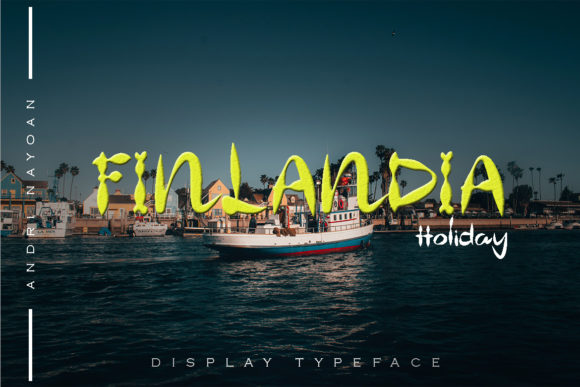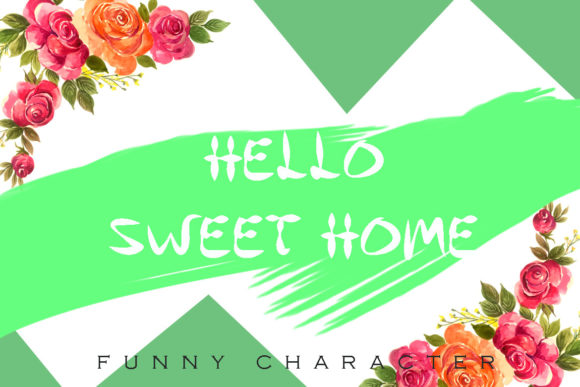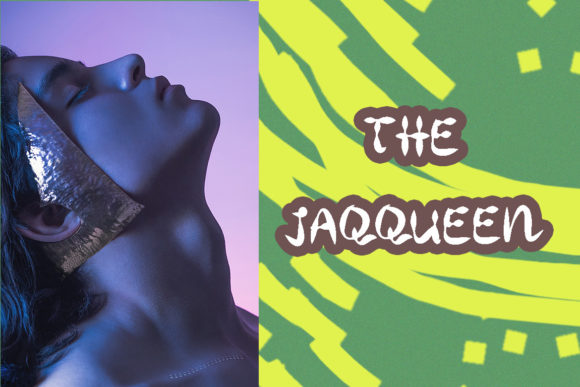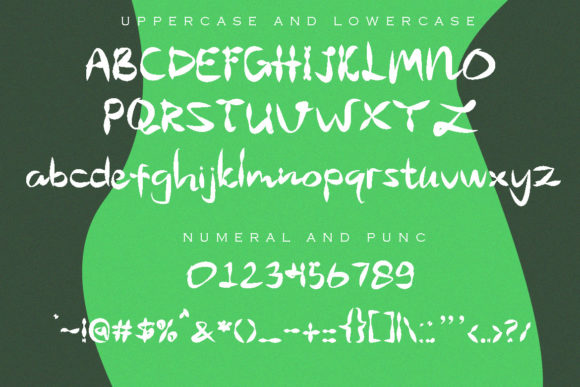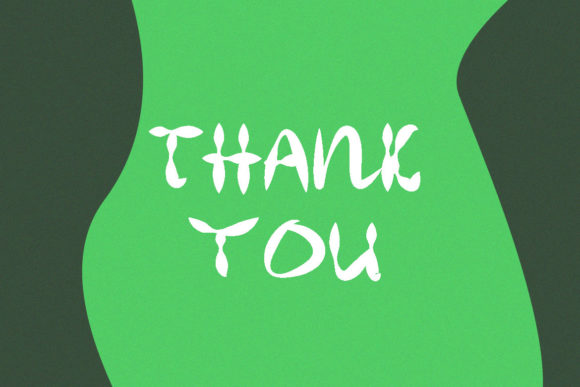
Introduction to Ostronge Font
As a designer, have you ever stumbled upon that one font that instantly sparks your creativity? The kind that makes you envision a whole new world of possibilities? For many of us, that moment is what drives our passion for design. And today, we’re excited to share with you a font that embodies that magic – the Ostronge Font.
This cool, organic, and quirky display font is a game-changer for any creative project. Its unique charm can elevate even the simplest of designs, making it a valuable addition to your design resource library.
Key Features of Ostronge Font
- High-quality design resource ideal for creative projects and professional use
- Unique, modern design with a transparent background, allowing for versatile usage
- Designed with precision, ensuring crisp and clear readability at high resolutions (up to 300 DPI)
- Supports a wide range of languages, making it a valuable resource for multilingual projects
- Comes in a range of sizes, from 12 to 72 points, catering to various design needs
- Perfect for use in logos, typography, and other design elements, adding a touch of elegance and sophistication
Honest Review: Ostronge Font
I recently had the opportunity to work with the Ostronge Font, and I must say it’s been a game-changer for my creative projects. As a designer, I’m always on the lookout for high-quality fonts that can elevate my work, and Ostronge Font definitely delivers.
- ✨ High-quality design: The Ostronge Font has a sleek, modern aesthetic that’s perfect for a variety of design projects.
- ✨ Transparent background: The font’s transparent background makes it easy to use on any design project, without worrying about background clutter.
While the Ostronge Font has many great features, there are a few limitations to be aware of:
- ⚠️ Limited font styles: While the font itself is great, there are limited font styles available, which may not be suitable for every project.
- ⚠️ Not ideal for large text: Due to its modern design, the Ostronge Font may not be the best choice for large text, as it can become difficult to read.
Overall, I’m really impressed with the Ostronge Font and would highly recommend it to designers looking for a high-quality, free design resource. Its sleek design and transparent background make it an excellent choice for a variety of creative projects.
How to Use Ostronge Font
Ostronge Font is a high-quality design resource ideal for creative projects. This versatile font can be used for various applications, including logos, graphics, and text overlays. One of its standout features is the transparent background, making it easy to overlay on images or videos.
To get the most out of Ostronge Font, experiment with different font sizes, colors, and styles. You can also use it in combination with other design elements to create a unique visual identity.
Ostronge Font is ideal for various creative projects, including:
- Text overlays
Alternatives to Ostronge Font
Alegreya Sans is a high-quality, sans-serif font perfect for creative projects that require a clean and modern design. It features a transparent background and is ideal for use in headings and titles. When to use: Alegreya Sans is suitable for designs that require a touch of sophistication and elegance. It compares to Ostronge Font in terms of its sleek and modern design, but Alegreya Sans has a more extensive character set and is highly legible at small font sizes.
Montserrat is a popular design resource for creative projects, offering a high-quality sans-serif font with a transparent background. It’s ideal for use in headings, titles, and body text. When to use: Montserrat is suitable for designs that require a clean and modern aesthetic. It compares to Ostronge Font in terms of its modern design, but Montserrat has a more extensive character set and is highly legible at small font sizes.
What is the recommended font size for the Ostronge Font?
The recommended font size for the Ostronge Font depends on the specific design project and the desired visual impact. However, as a general guideline, the font size can range from 12 to 48 points, depending on the intended use and the design context. It’s always a good idea to experiment with different font sizes to find the optimal size for your design project.